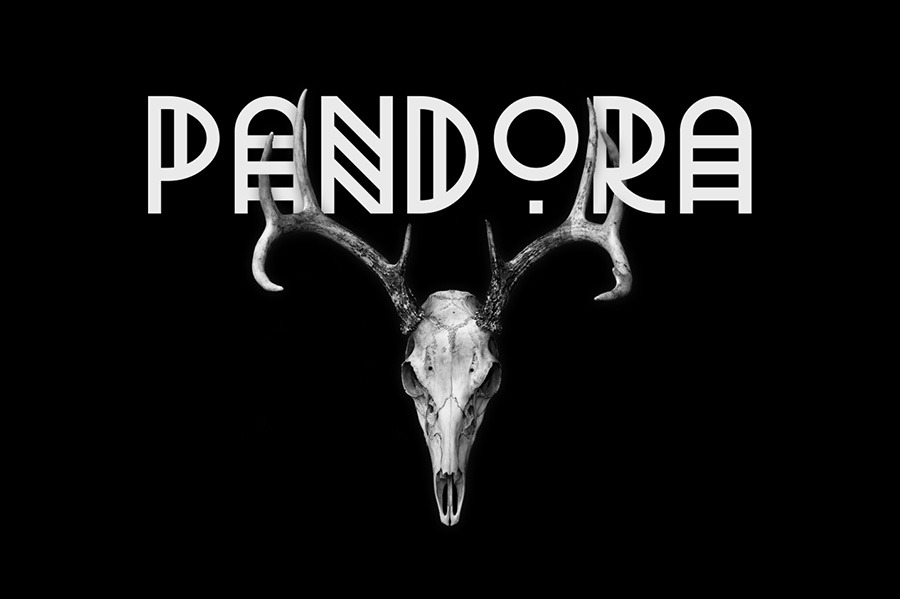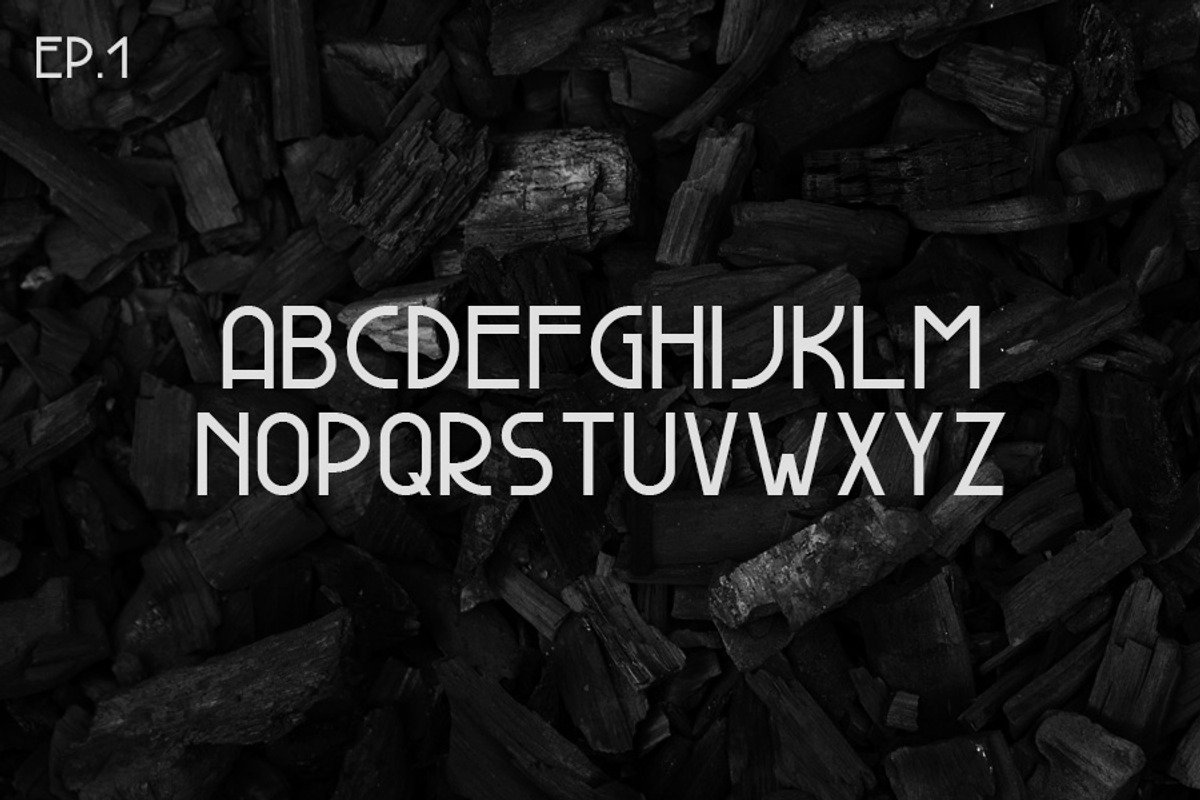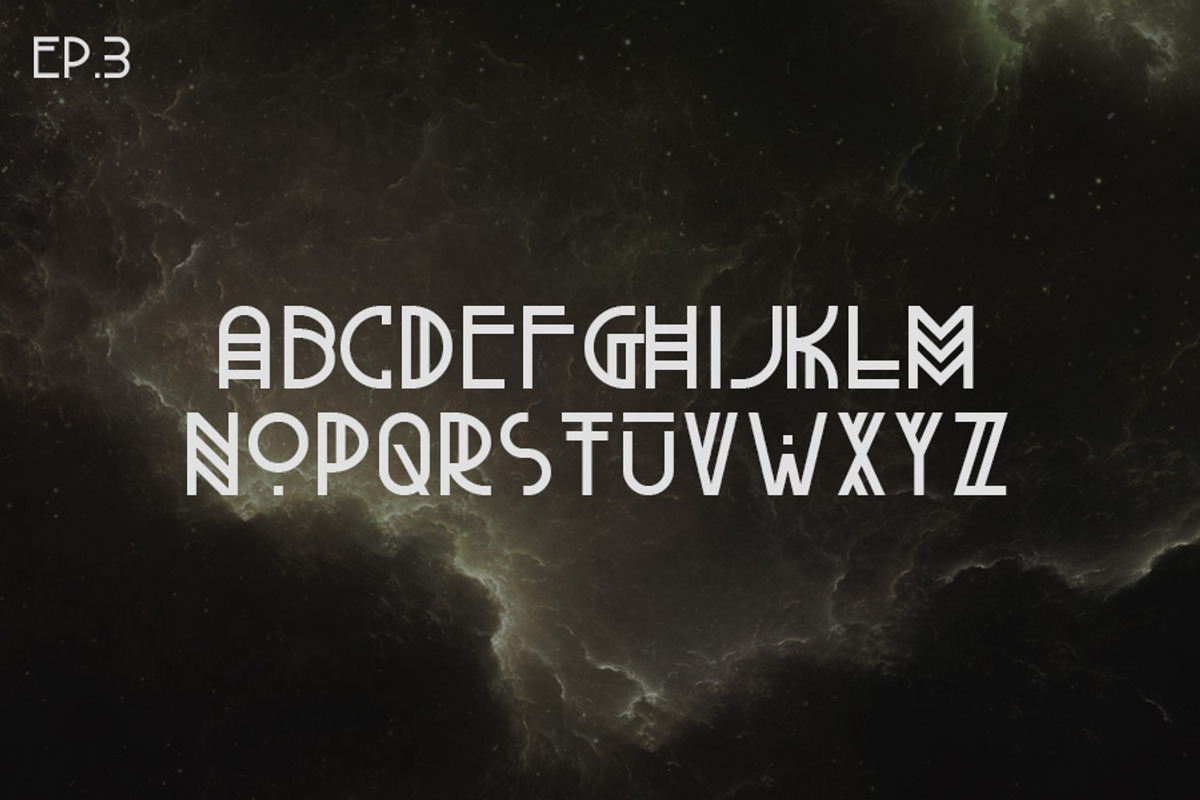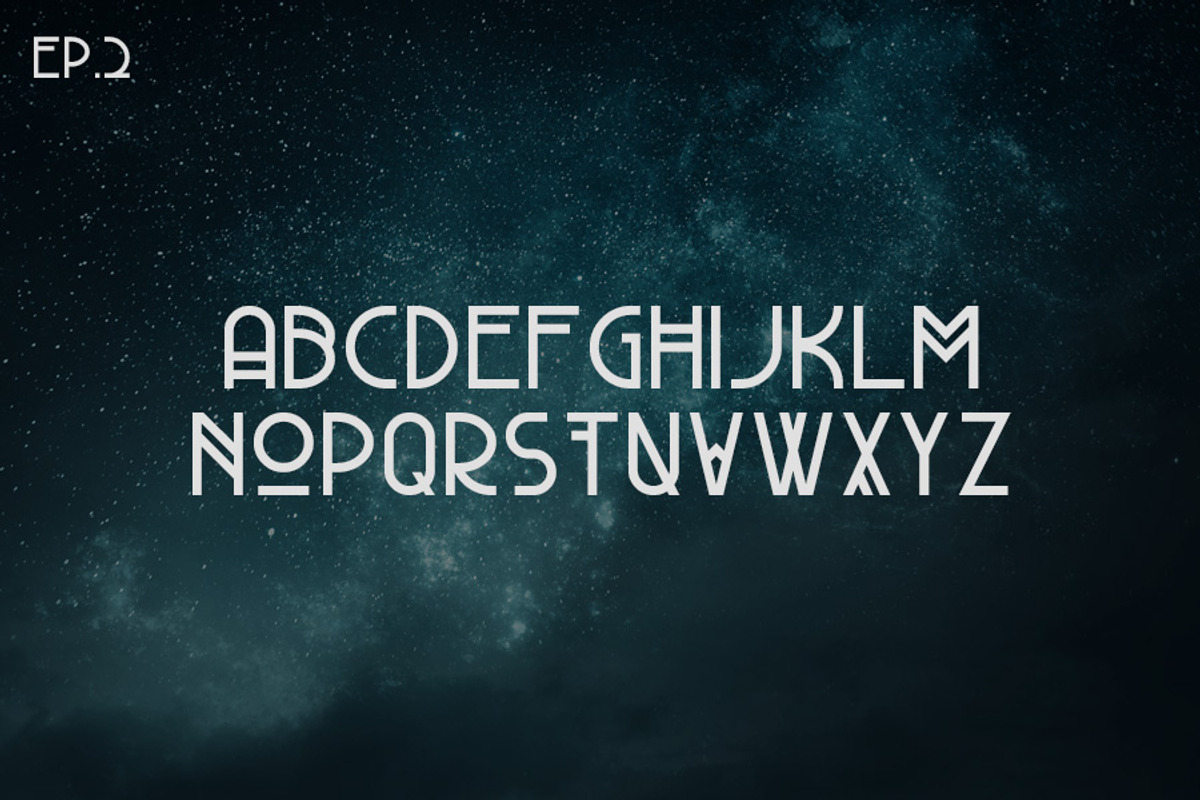
Pandora Typeface
Pandora is a weird typeface, it was inspired by a lot of things, some album covers and American Horror Story among some of the inspiration. It consists of 3 different fonts. Ep.1 is the simple version of the font, Ep.2 has more geometric elements and is more abstract and Ep.3 is just out of this world.
The typeface only includes Uppercase letters and numerals.